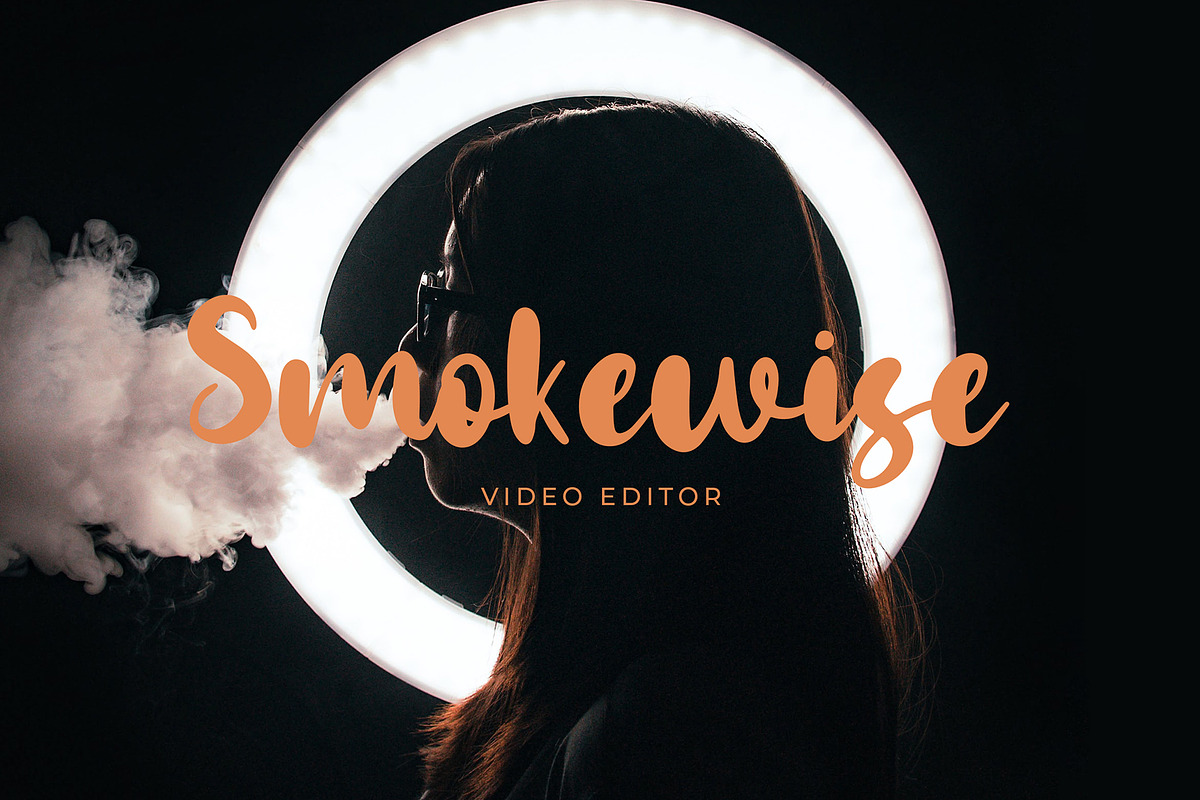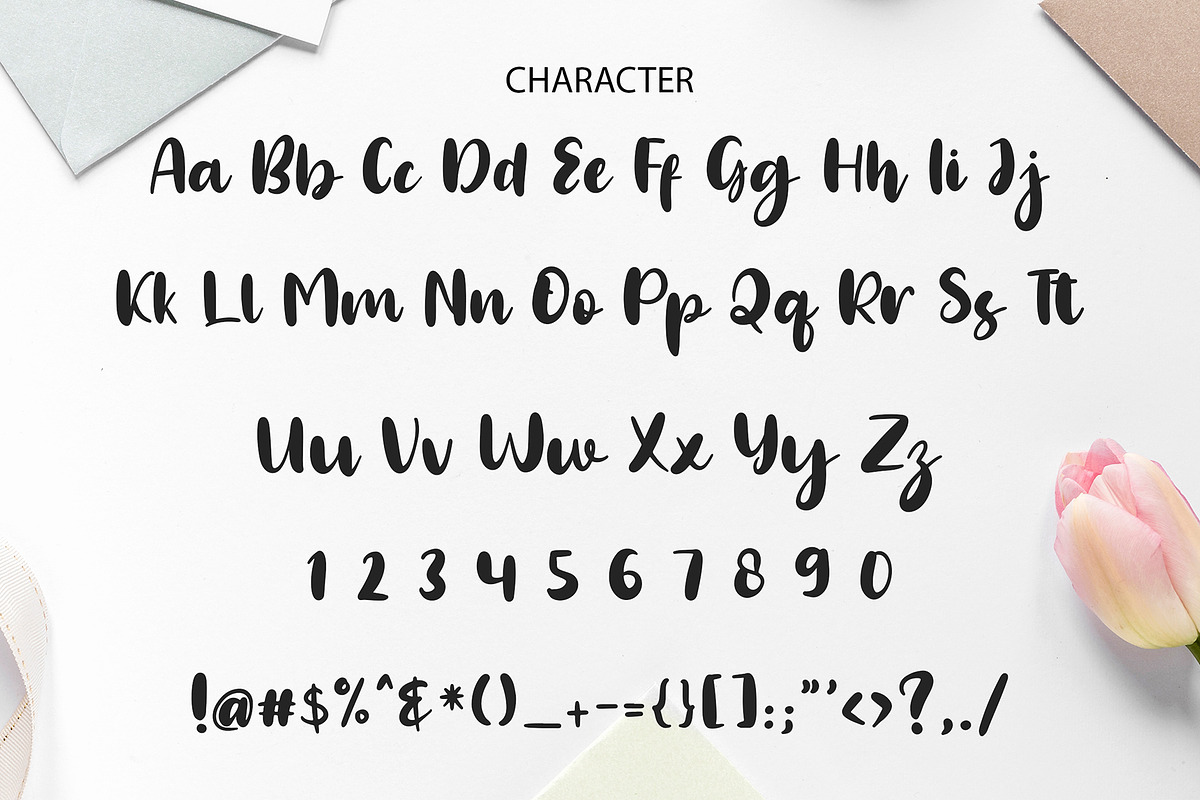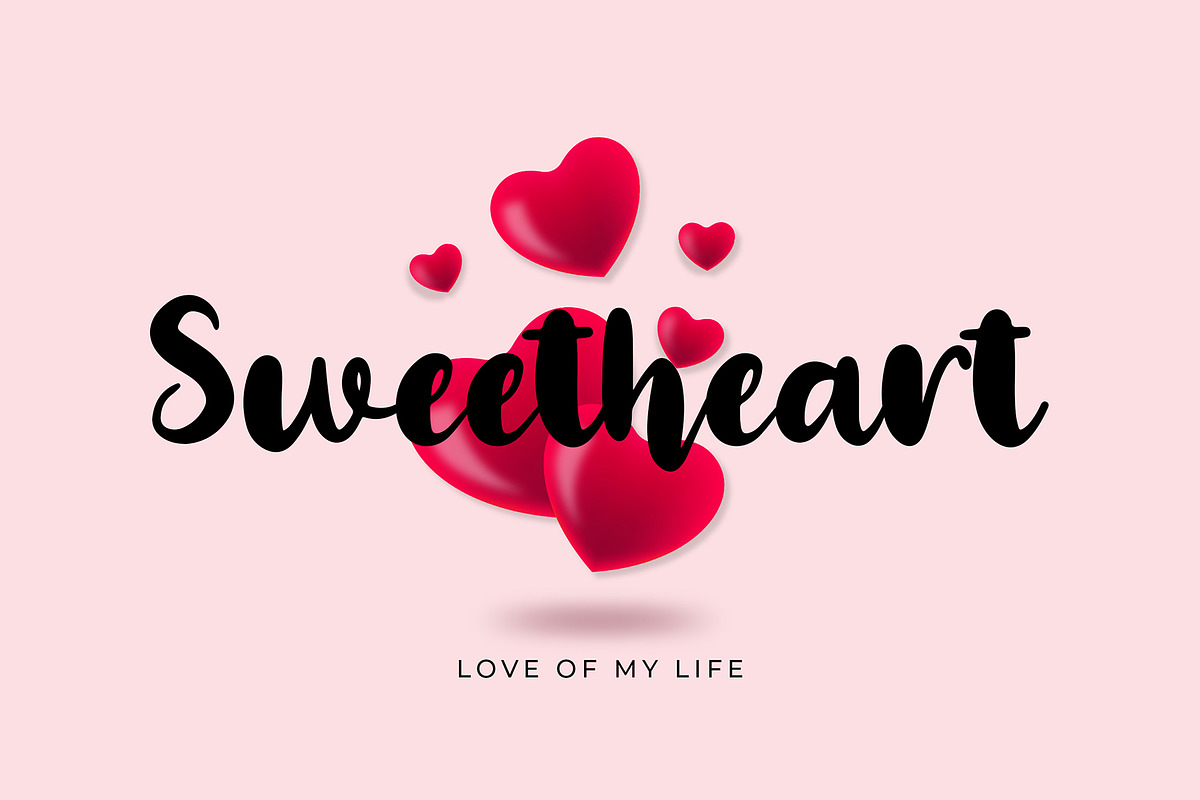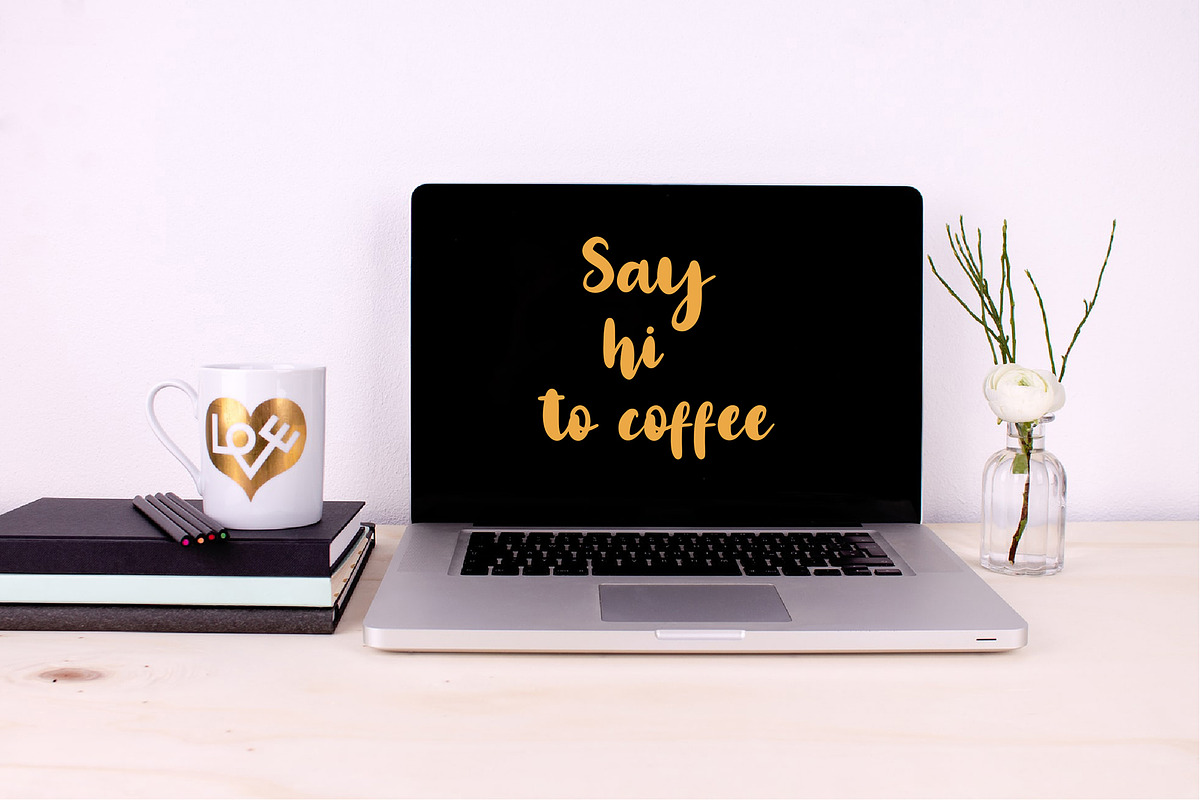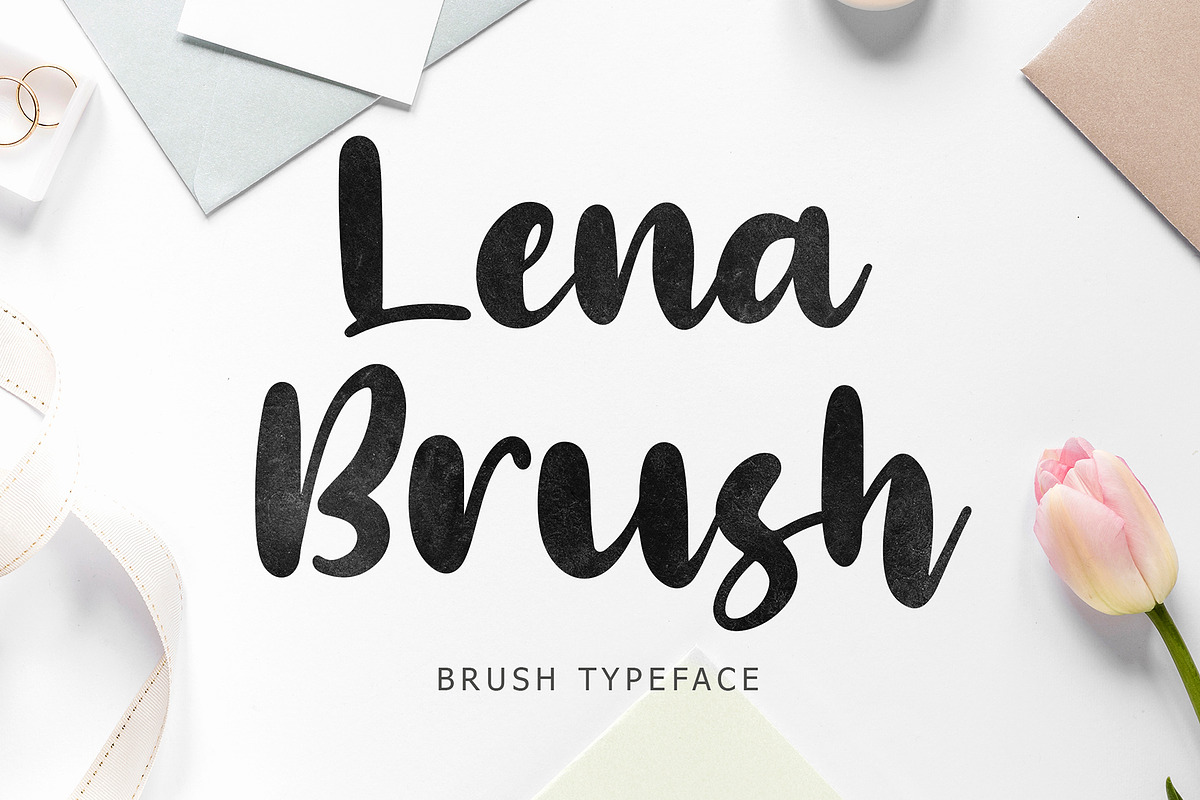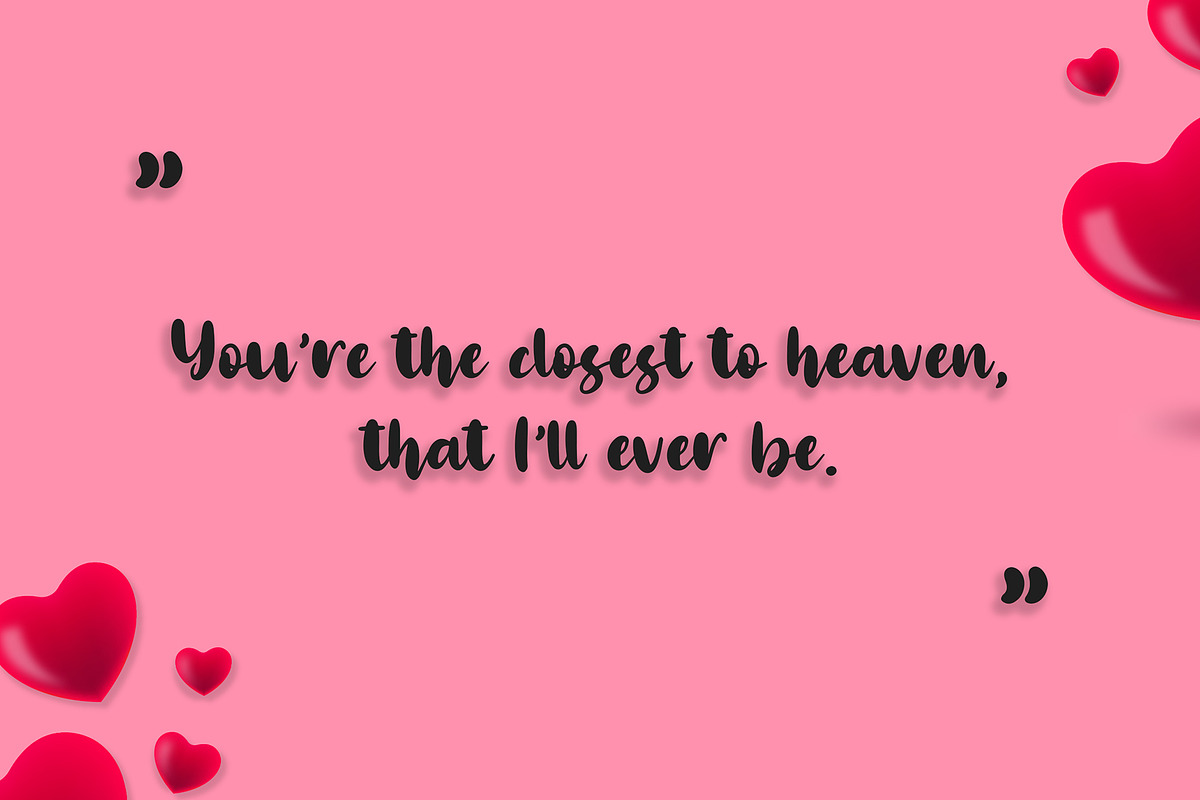
Lena Brush Typeface
Lena Brush is a brush typeface can make your text appear elegant, luxurious, and modern!
Lena Brush is perfect for branding projects, logo, wedding designs, social media posts, advertisements, product packaging, tshirt design, product designs, label, photography, watermark, invitation, stationery and any projects.
Lena Brush Typeface by Formatika Studio fits naturally into Branding, posters, packaging, typography.